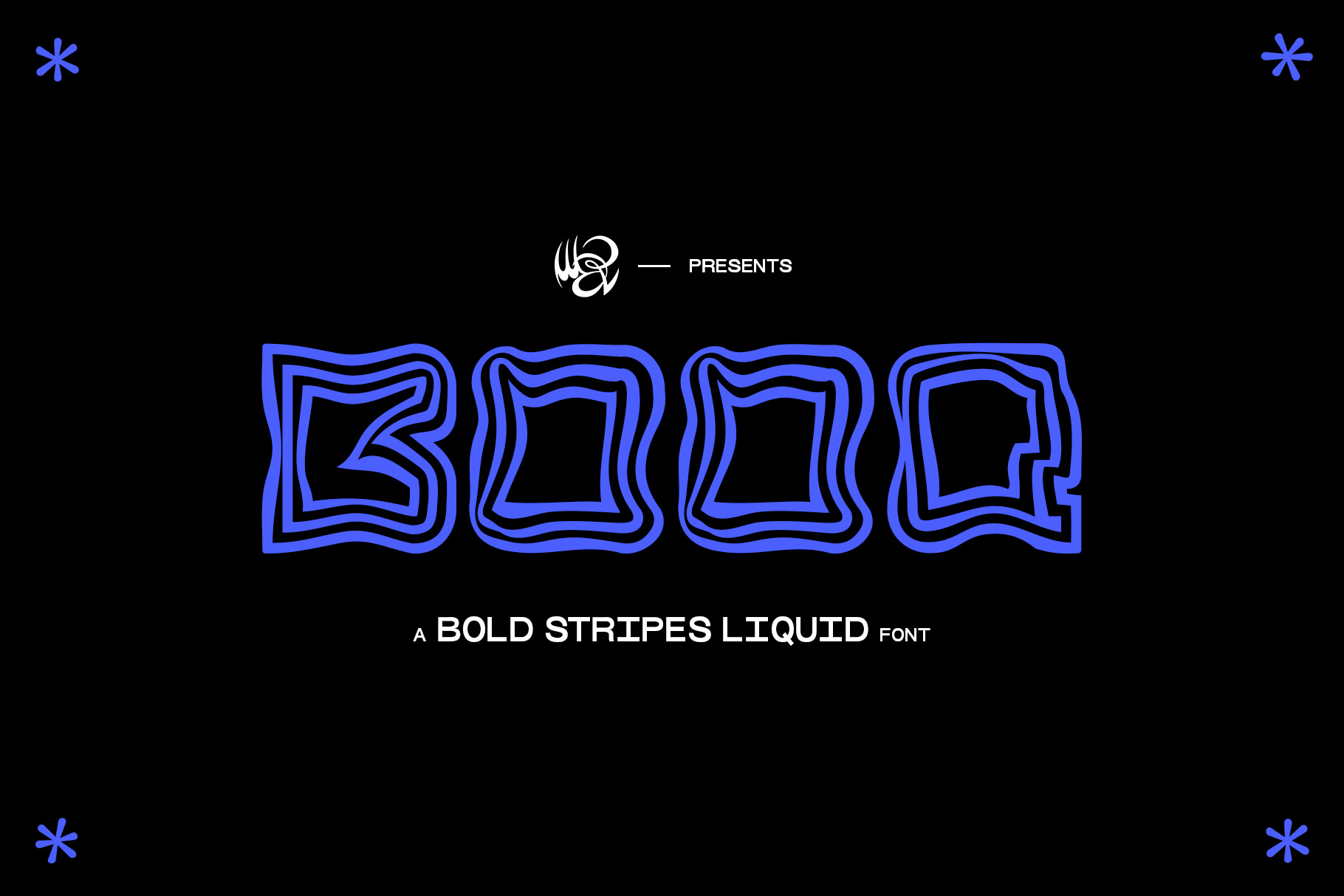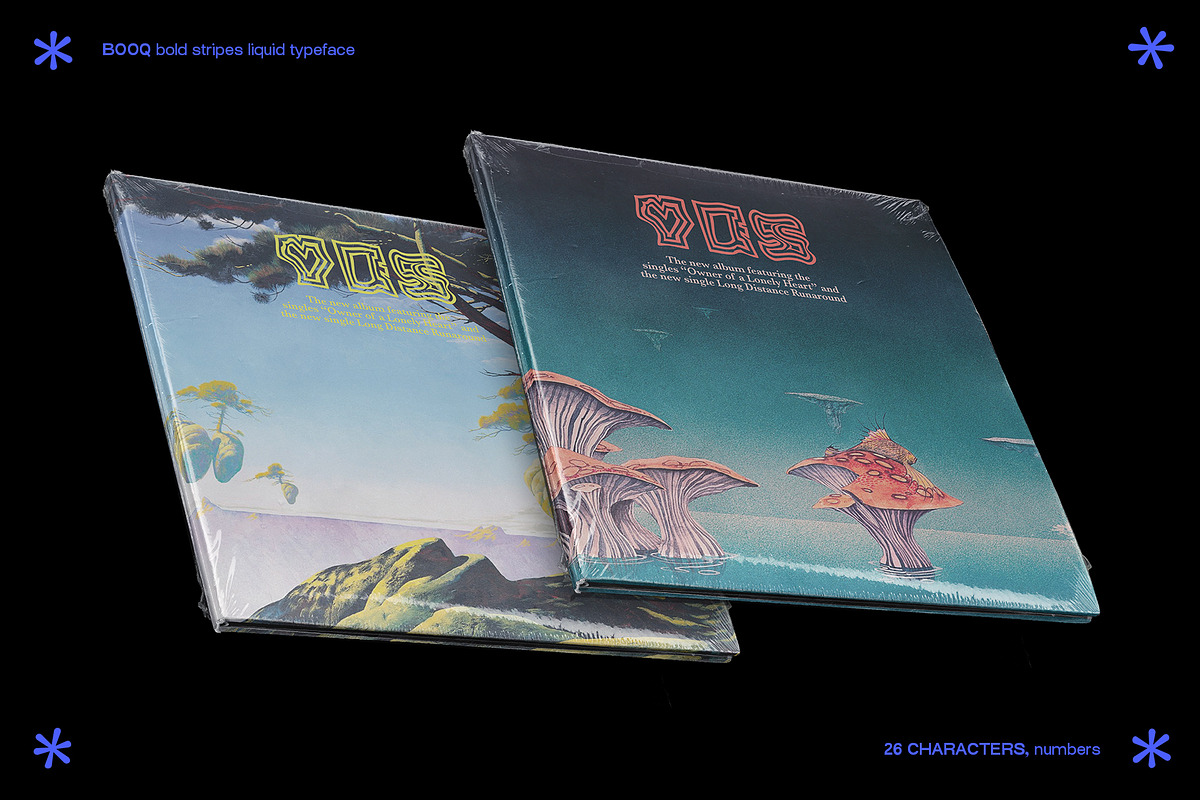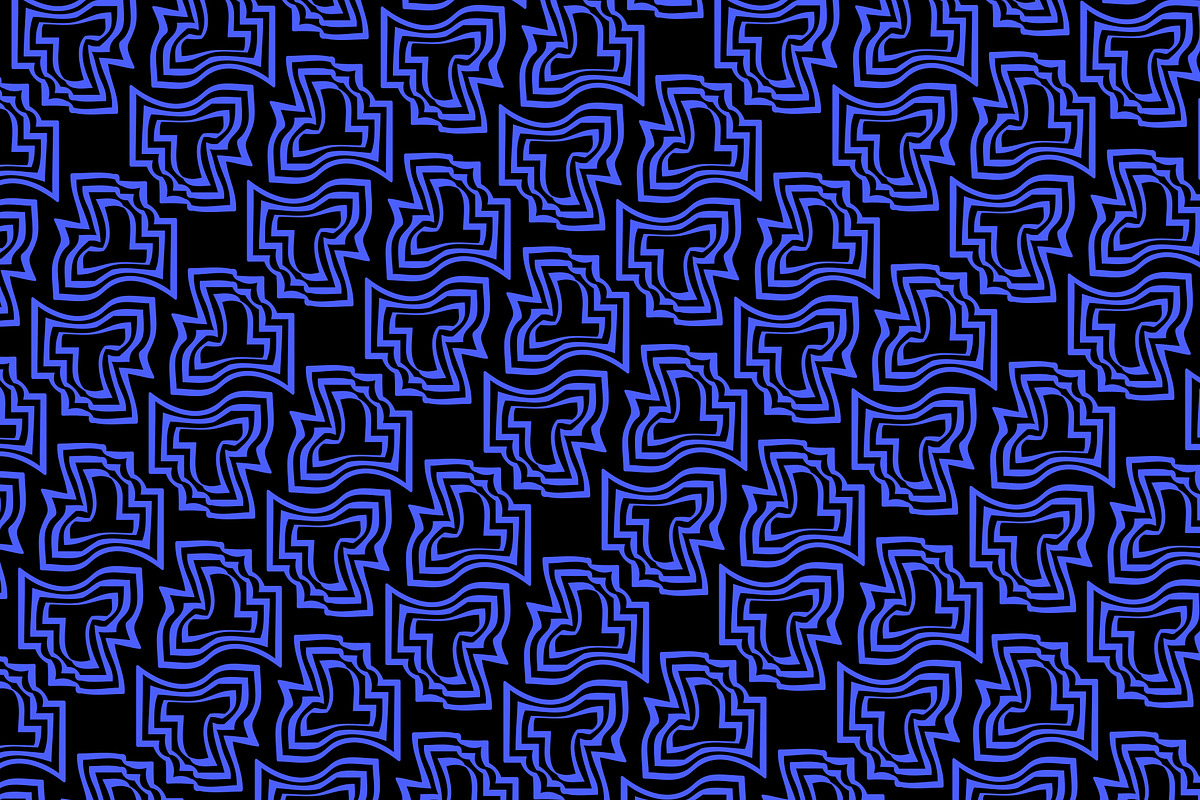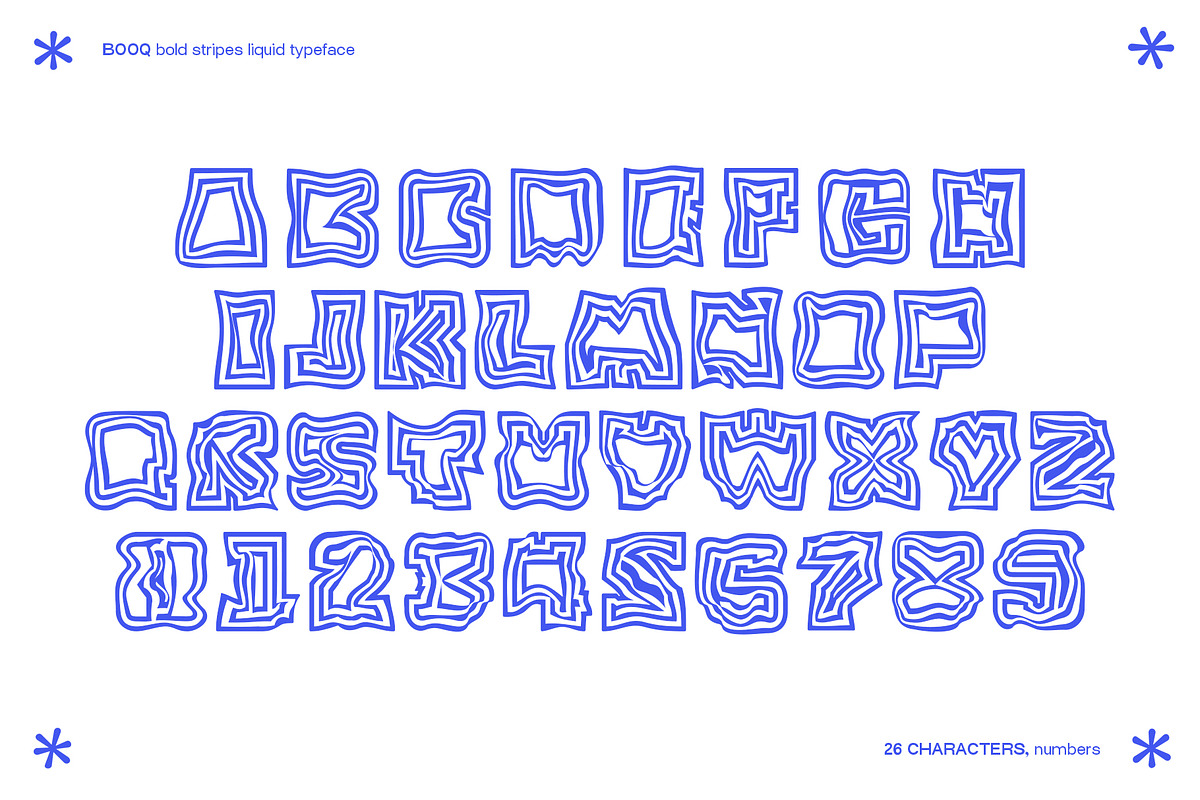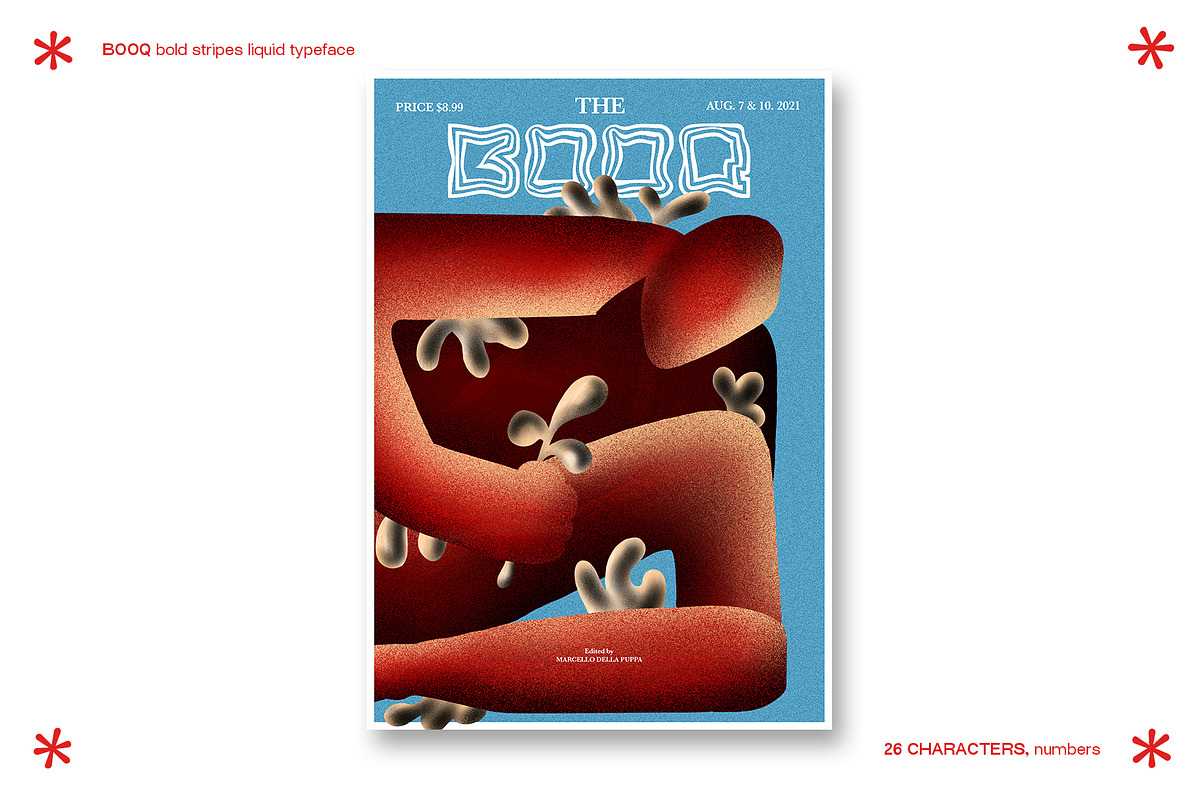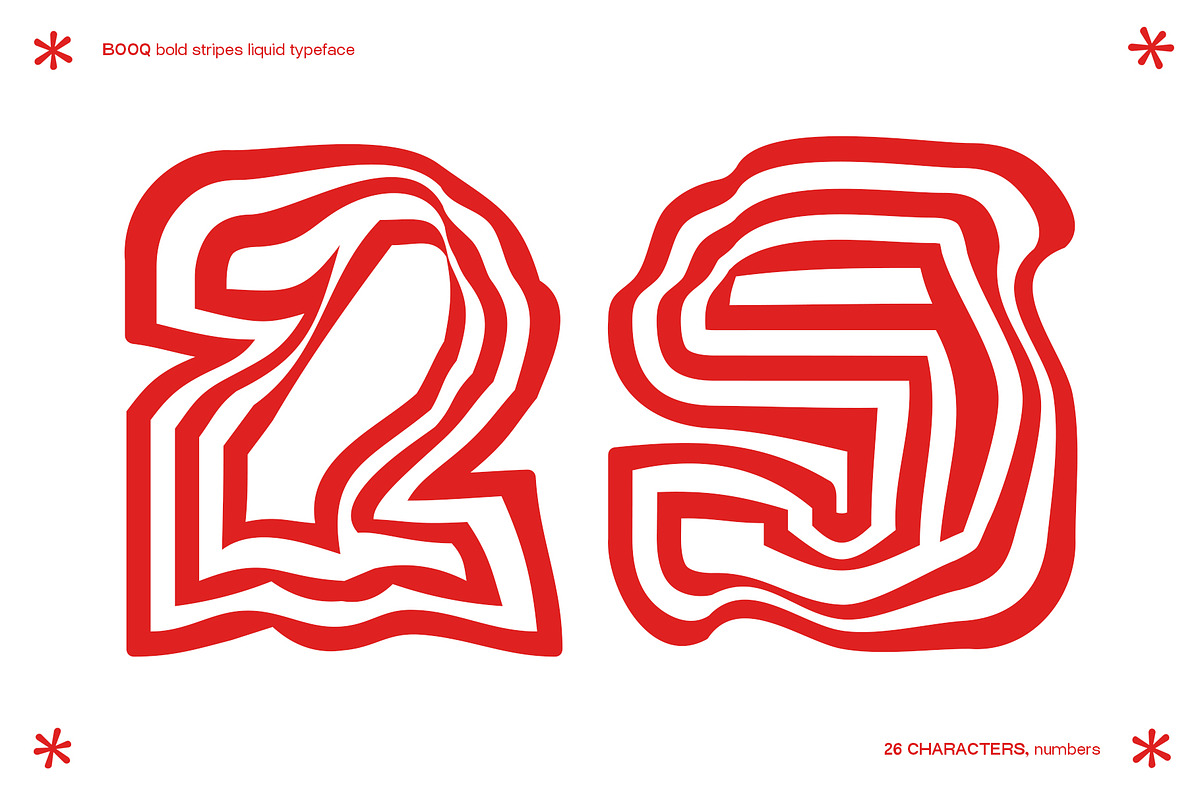
BOOQ Bold liquid Typeface
Booq is a new bold liquid typeface full of all 26 characters and numbers. Each letter and number has been created with 3 individual lines that resembles the ocean waves, getting closer to each other but never coming together. This font is perfect to create big titles and headlines, posters, covers, and much more... I wouldn't recommend to use it to write small texts because it can become hard to read. For any question feel free to text me at @marcellodellapuppa on Instagram